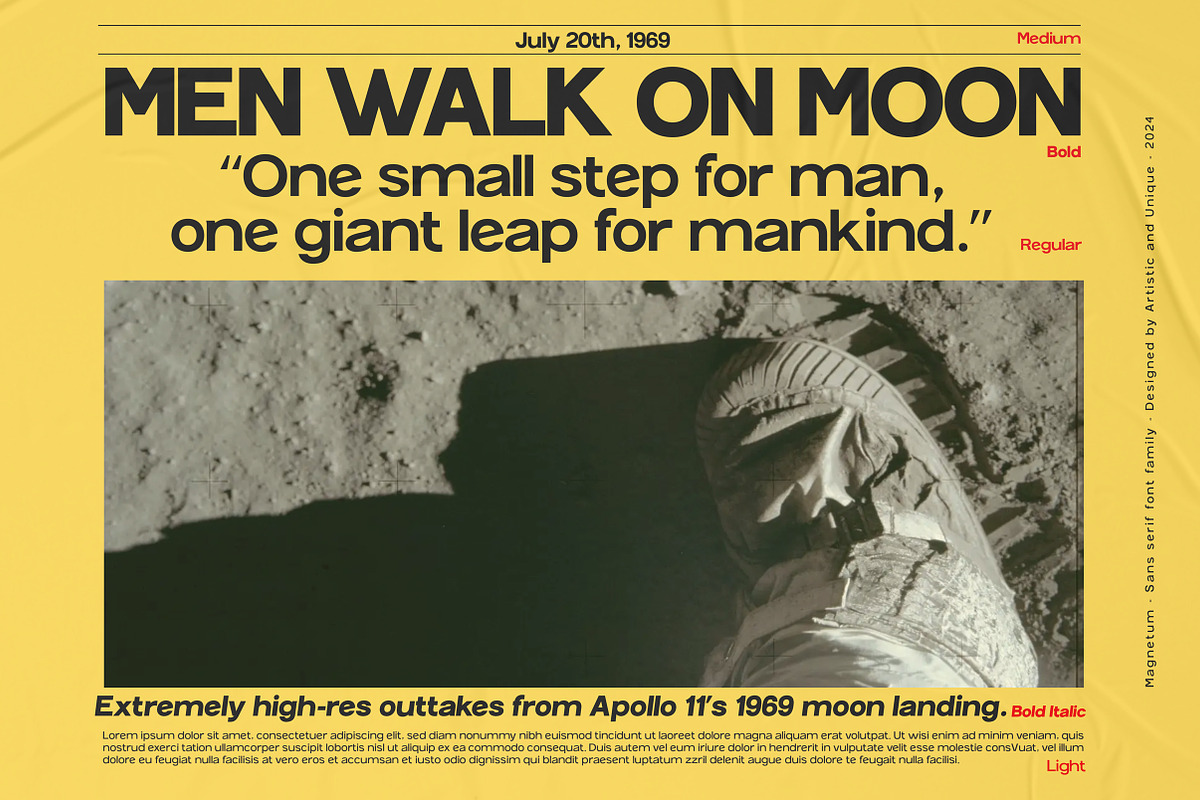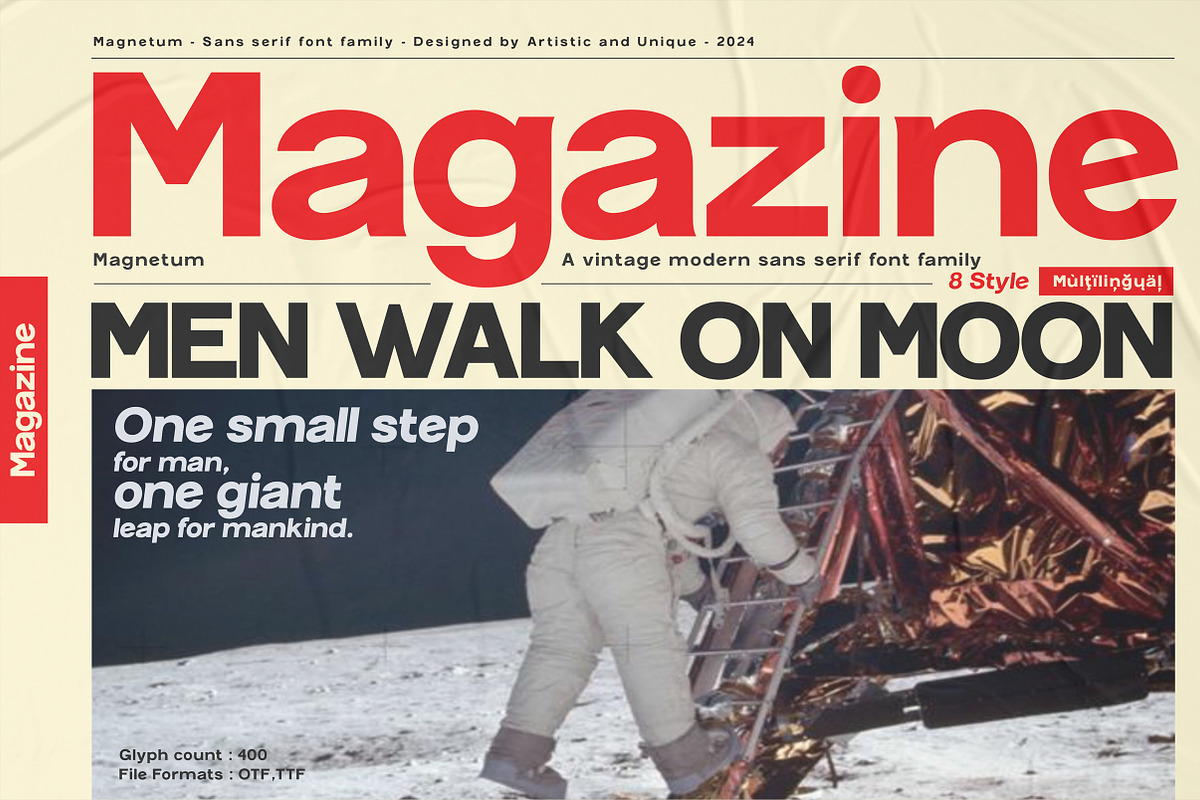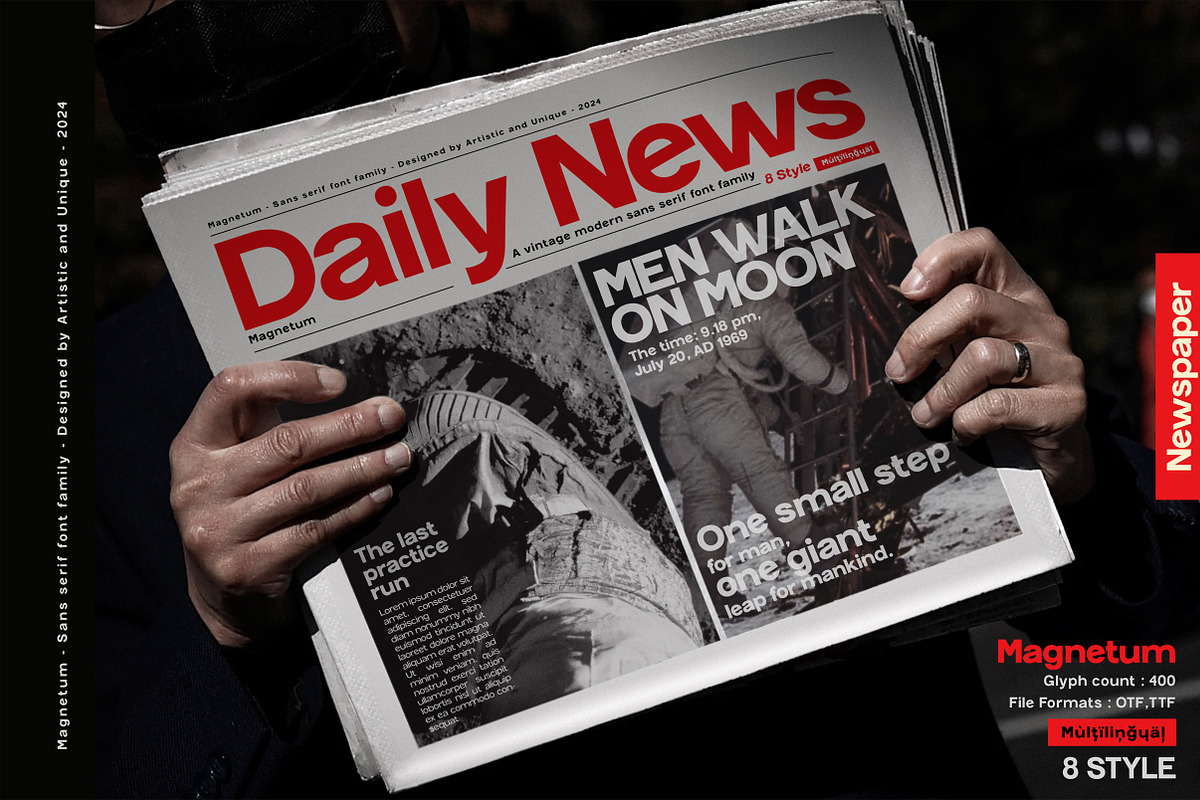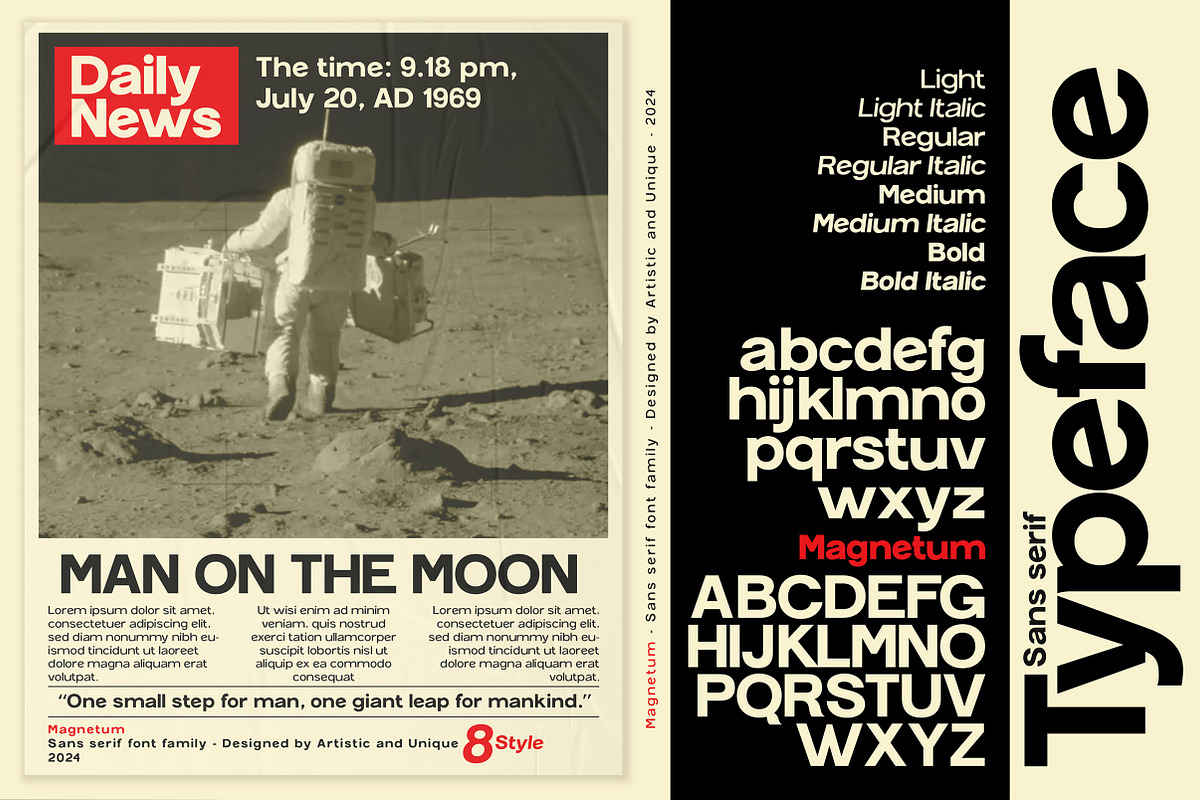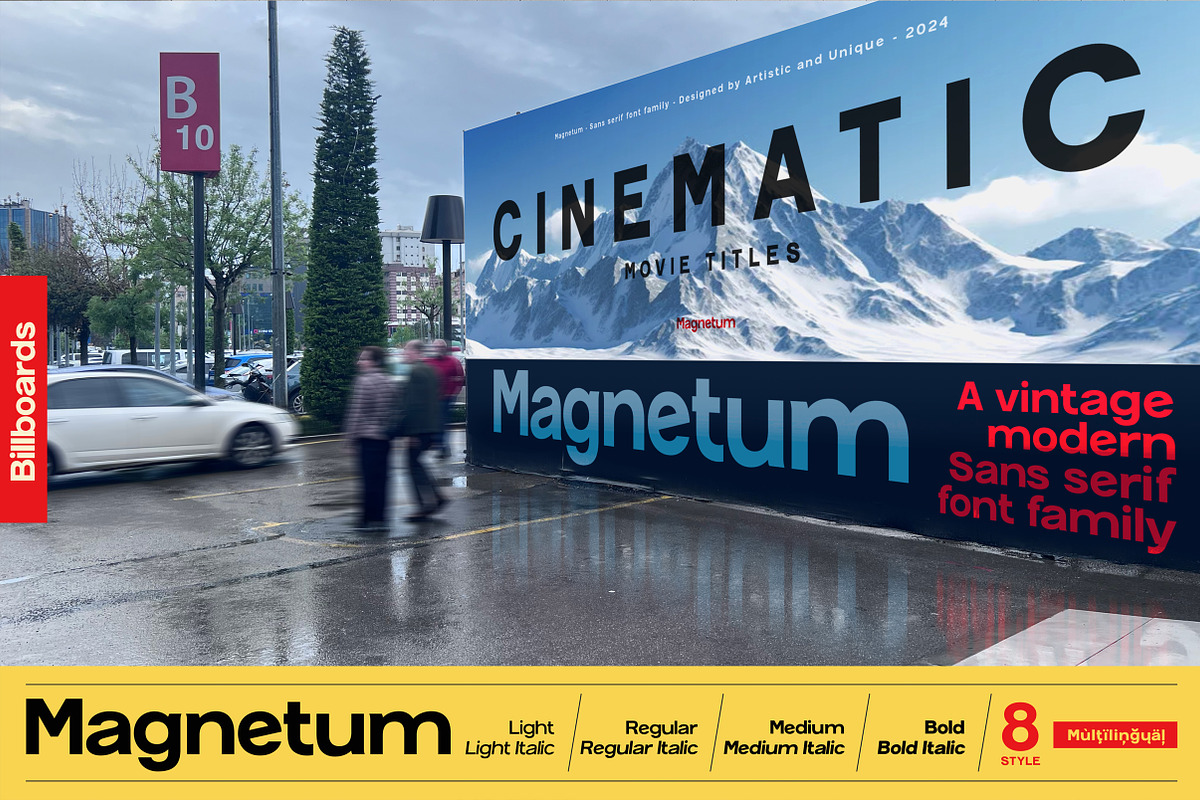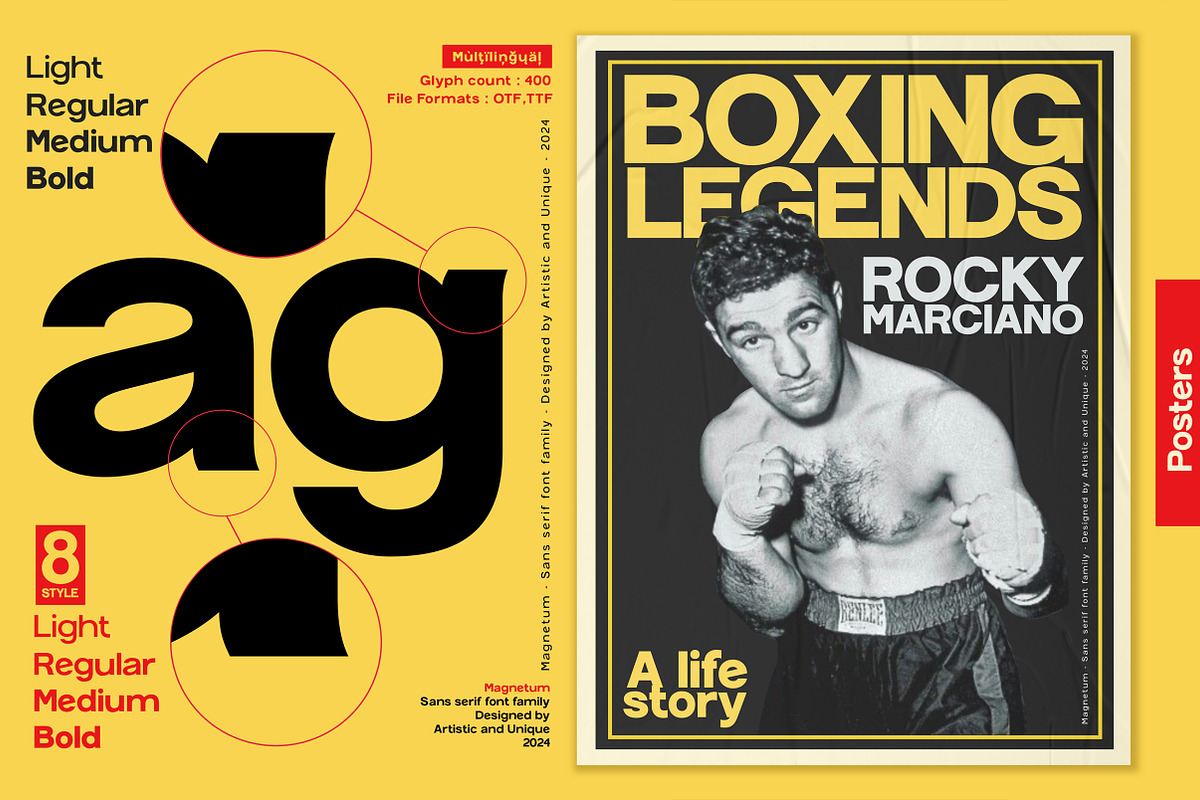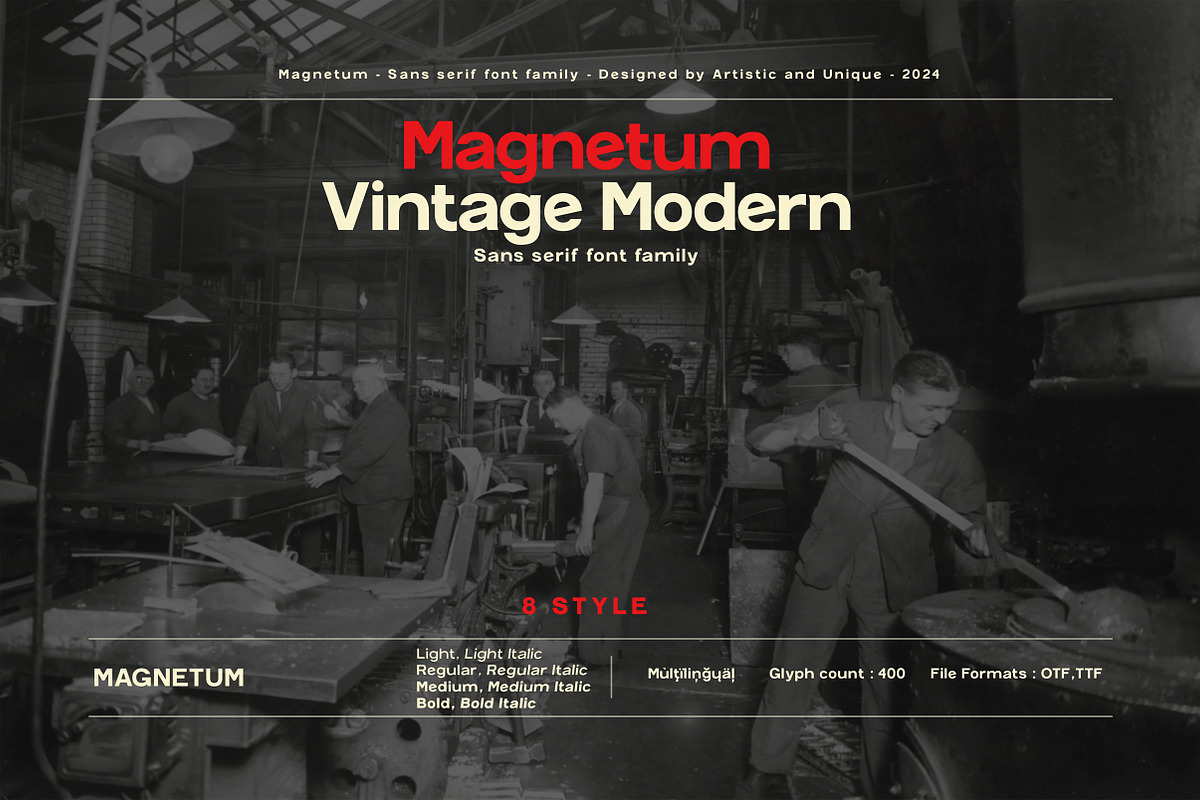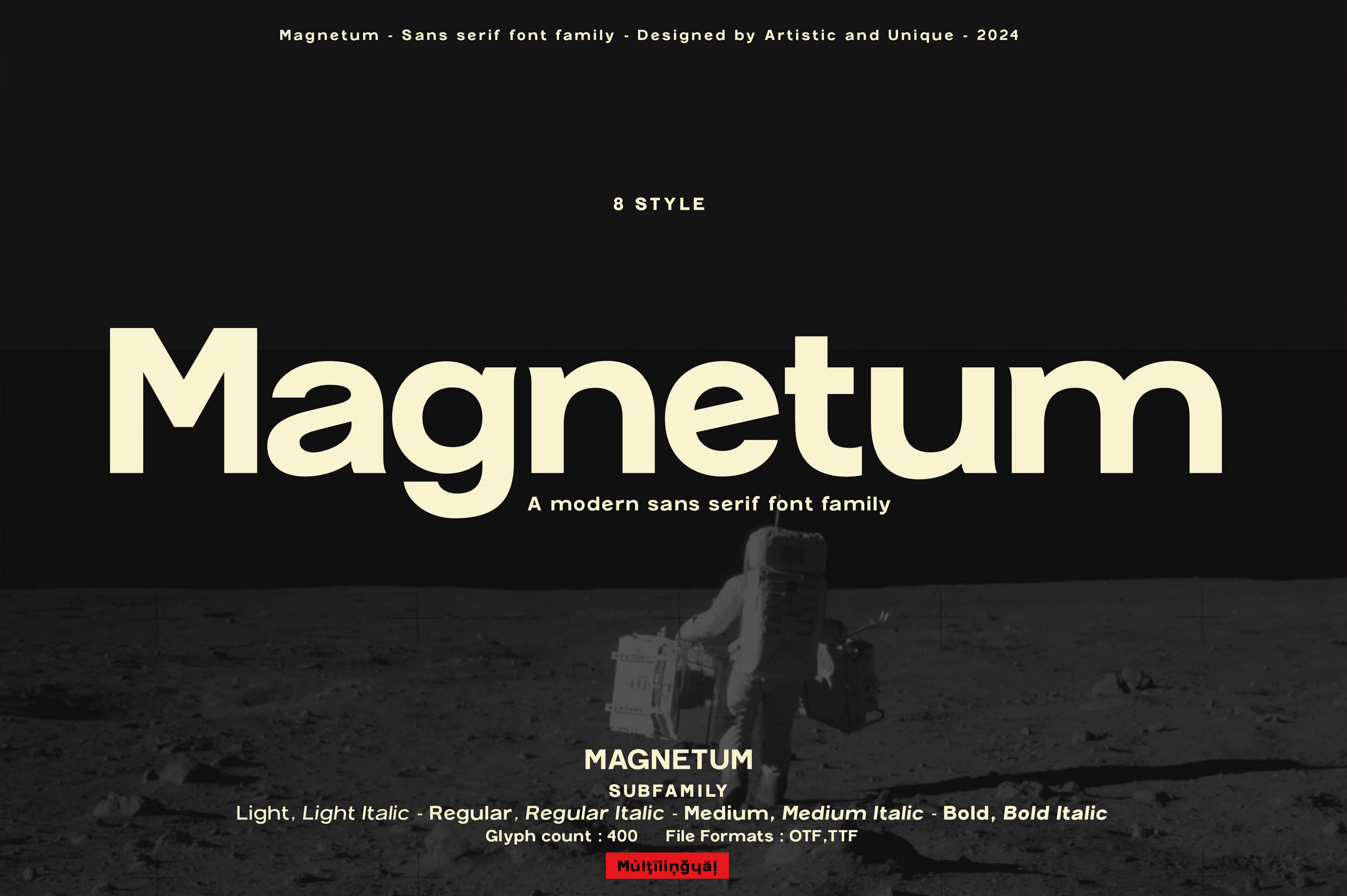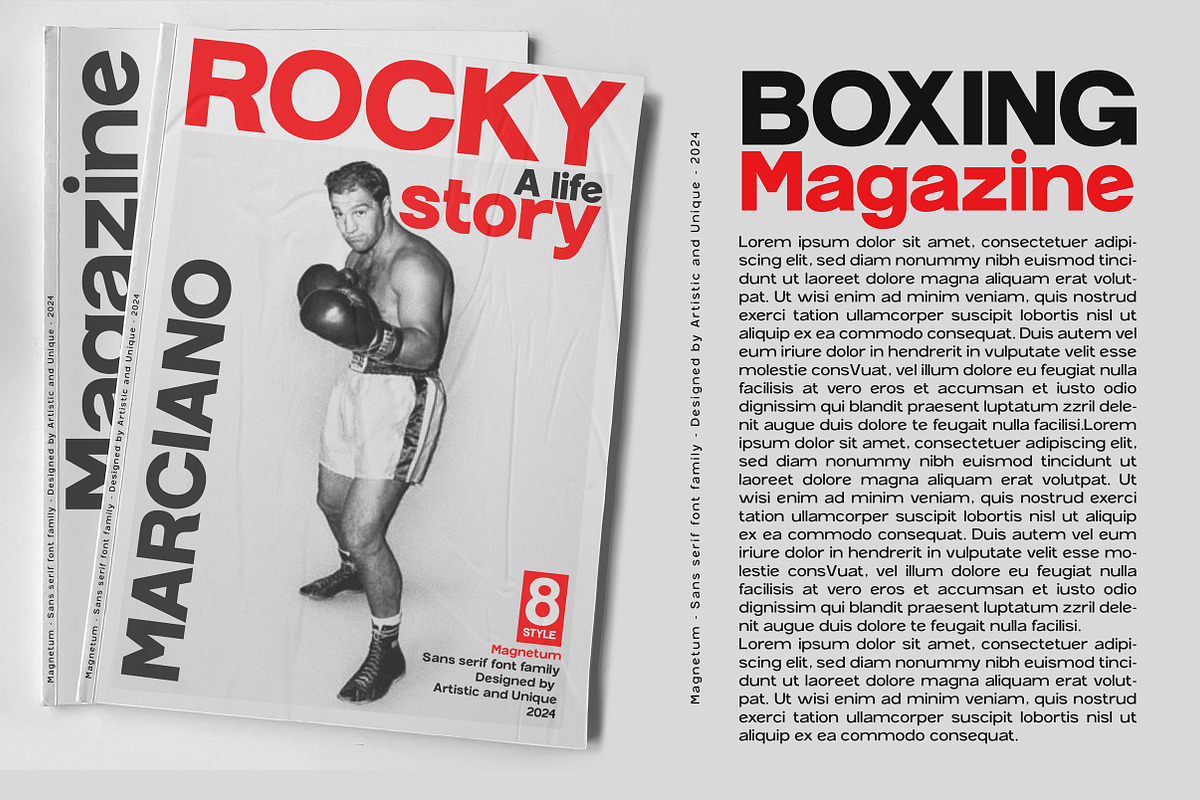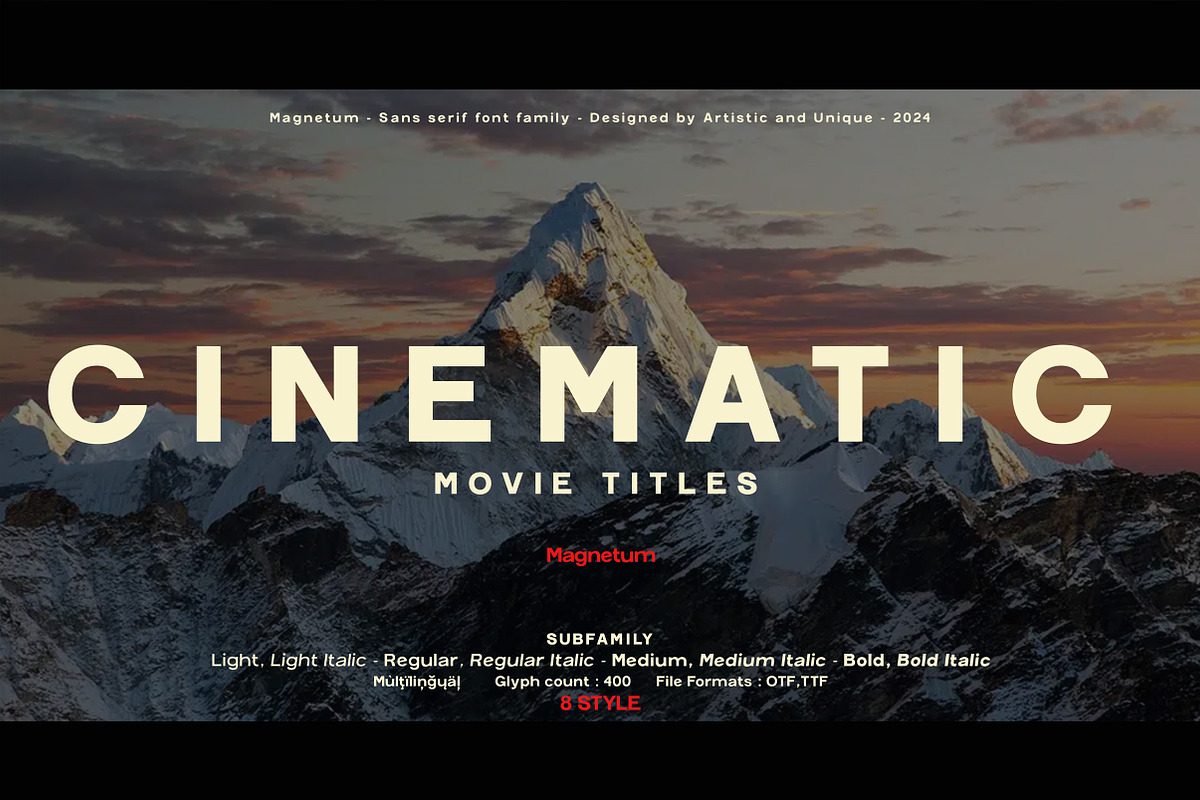
Magnetum - Sans serif font family
Magnetum - Sans serif font family - 8 Styles - Multilingual supports.
Magnetum - Sans serif font family is a vintage-modern font with 8 styles and multilingual supports. This sans serif font family is inspired by fonts whose main structure is from the 1930s to the 1960s.The spirit of the newspapers and magazines of these periods has been brought to the present and modernized.It is especially suitable for strong headlines and title.
You can easily use the sans serif font feature in many areas.
Ideal for books and magazines, editorials, headlines, websites, logos, branding, advertising, movie titles, posters and more. This font family can meet your needs in all creative projects, modern and classic.
With these features, it will be effective in creating alternatives in your projects.It is also assertive about being a highly readable font with different wights.